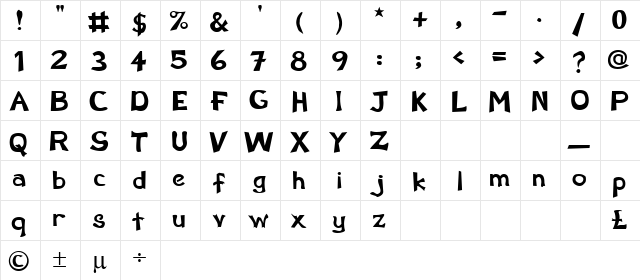
Schootz Regular
Design Context for Schootz Typeface
Schootz is a composed and adaptable typeface that performs quietly and consistently across a wide range of design contexts.